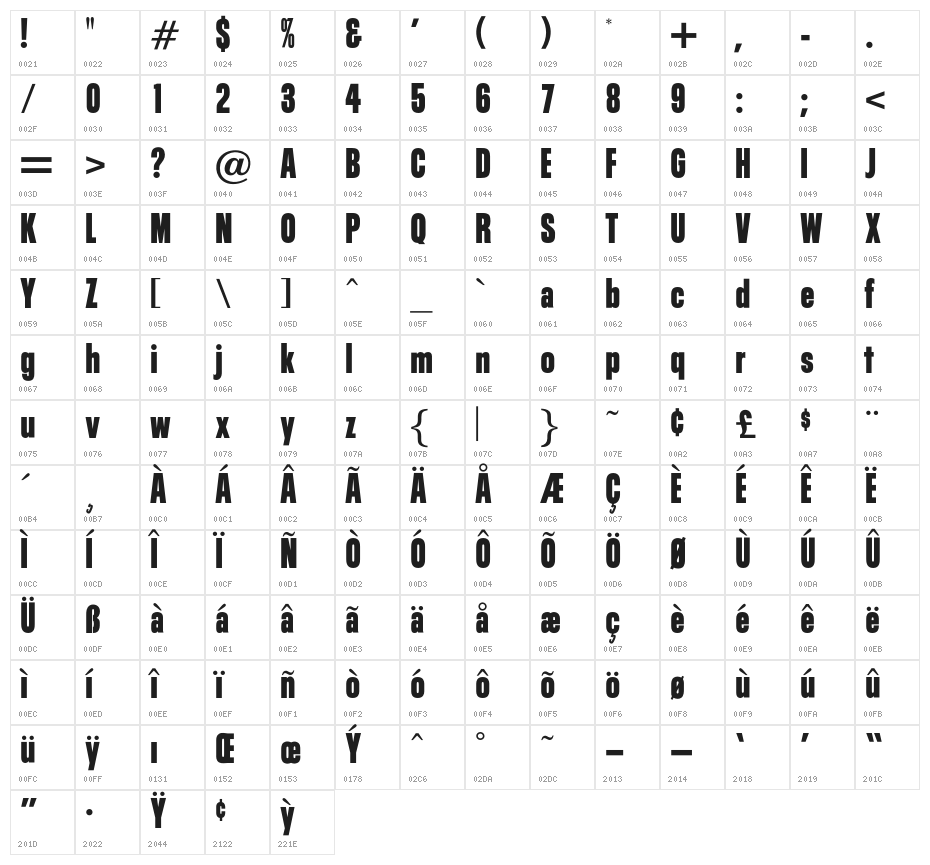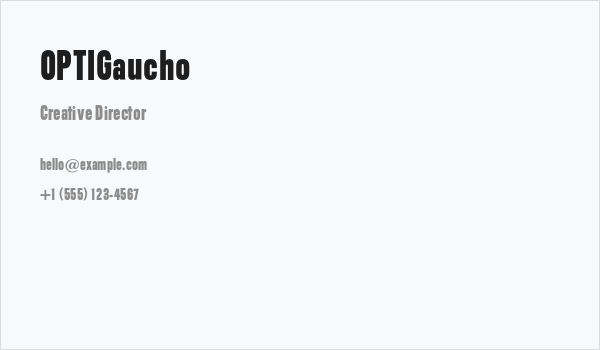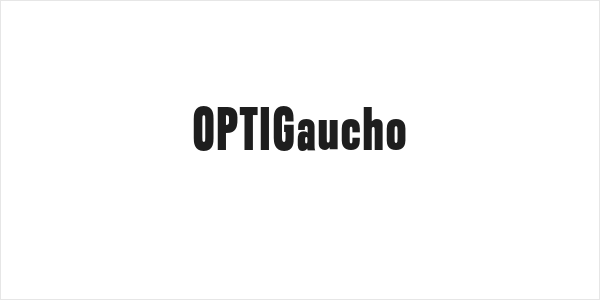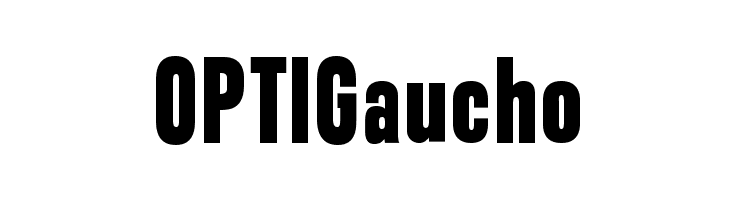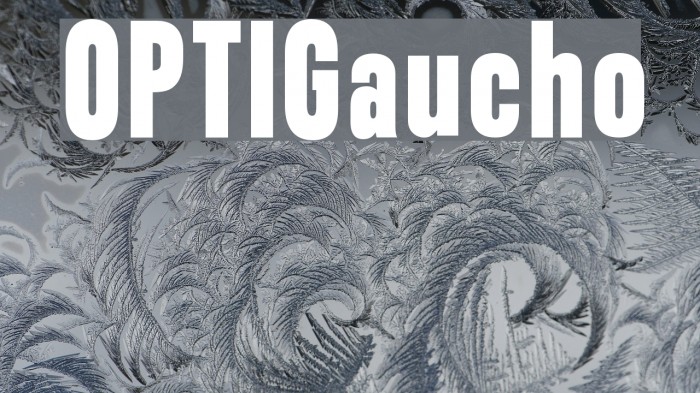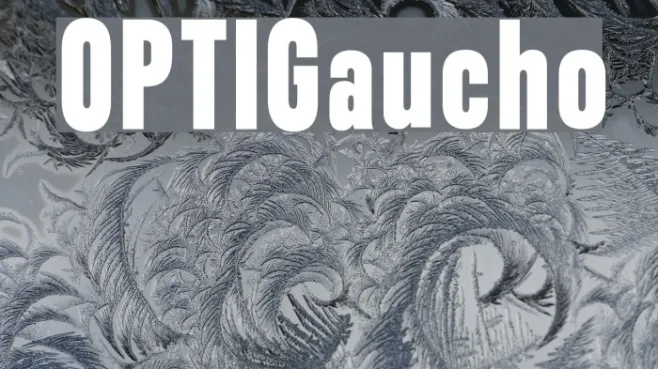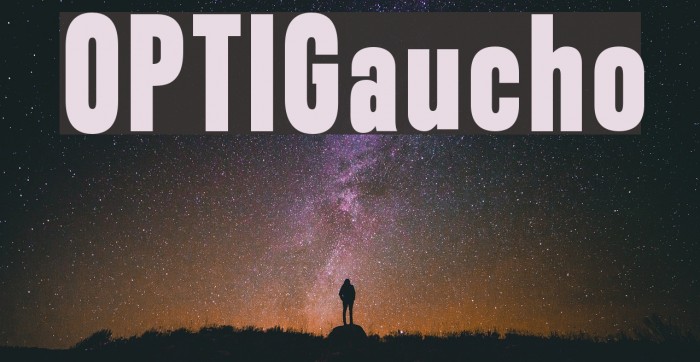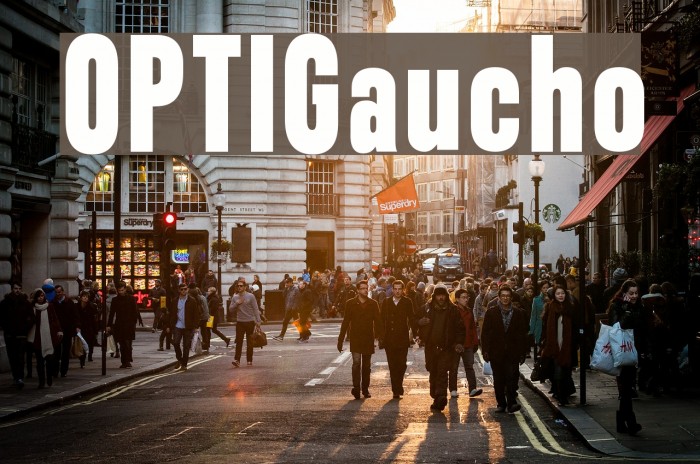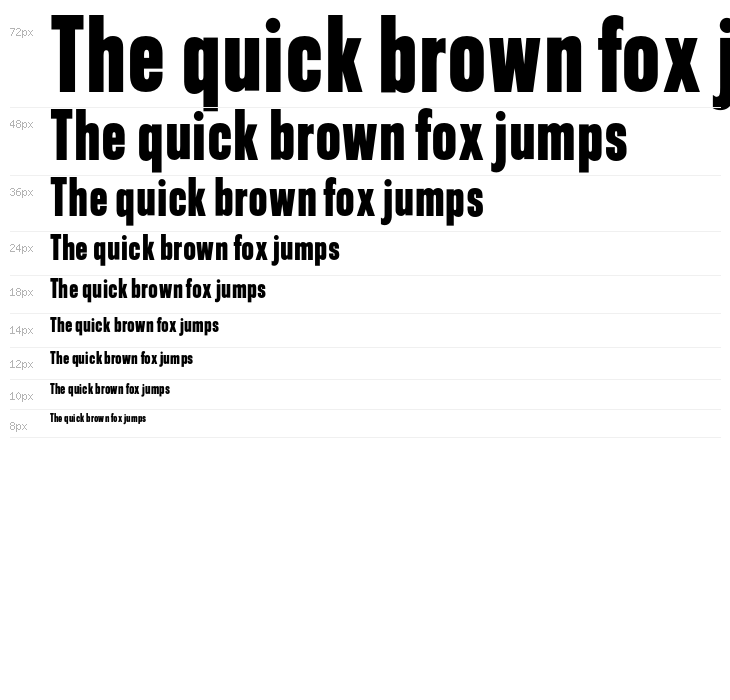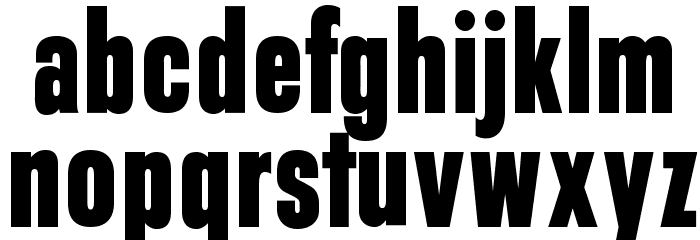
OPTIGaucho Font
OPTIGaucho Description
This font is characterized by its bold and impactful presence, featuring thick, uniform strokes that create a strong visual impact. The uppercase letters are tall and commanding, while the lowercase letters maintain a consistent weight, offering a harmonious balance. The numerals are equally bold, ensuring readability and emphasis. Special characters are designed with the same robust style, making them stand out. The overall design is clean and modern, with a focus on clarity and strength, making it suitable for attention-grabbing headlines and statements.
| Proposed Projects | Ideal for posters, headlines, branding, and any project requiring a bold statement. |